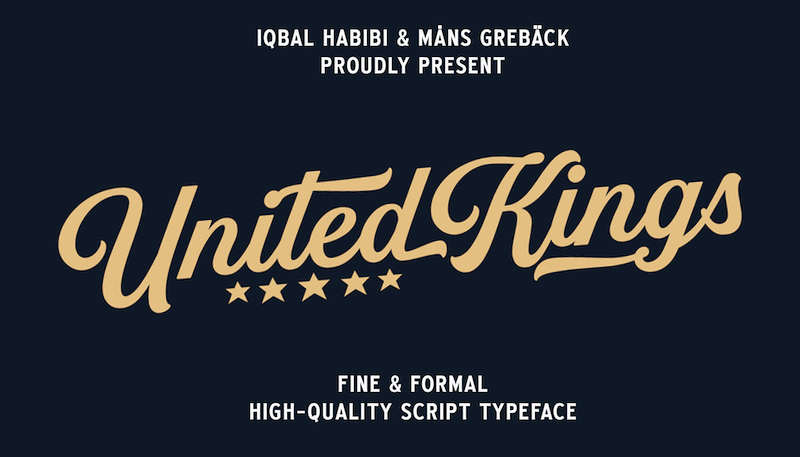
Preview and download United Kings Font. Created by Måns Grebäck in Script Old School styles with Free for personal use license.
NOTE: This font is for PERSONAL USE ONLY! To purchase a commercial license, visit: http://mn.sg/united-kings United Kings is a masterfully crafted formal script font that exudes an air of perfection and fine art. The exquisite letterforms of United Kings make it a great choice for formal logotypes. Use � to make tail swashes, or multiple for longer swashes. Example: Kingdom��� Use underscores _ anywhere in a word to make an underline. Example: Belo__ved Use # after any letter to give it a crown. Example: Que#en For questions, please visit www.mansgreback.com/faq |